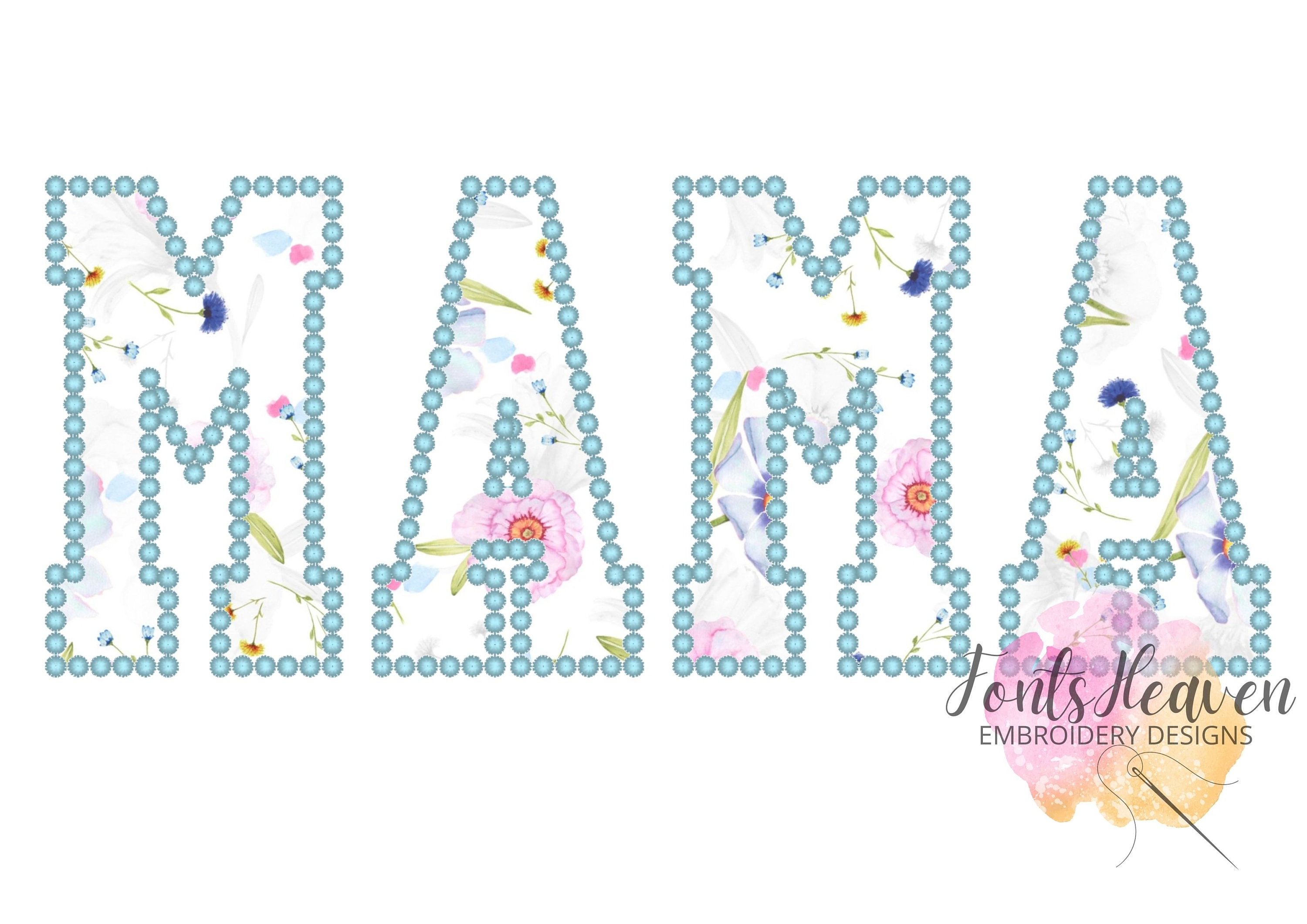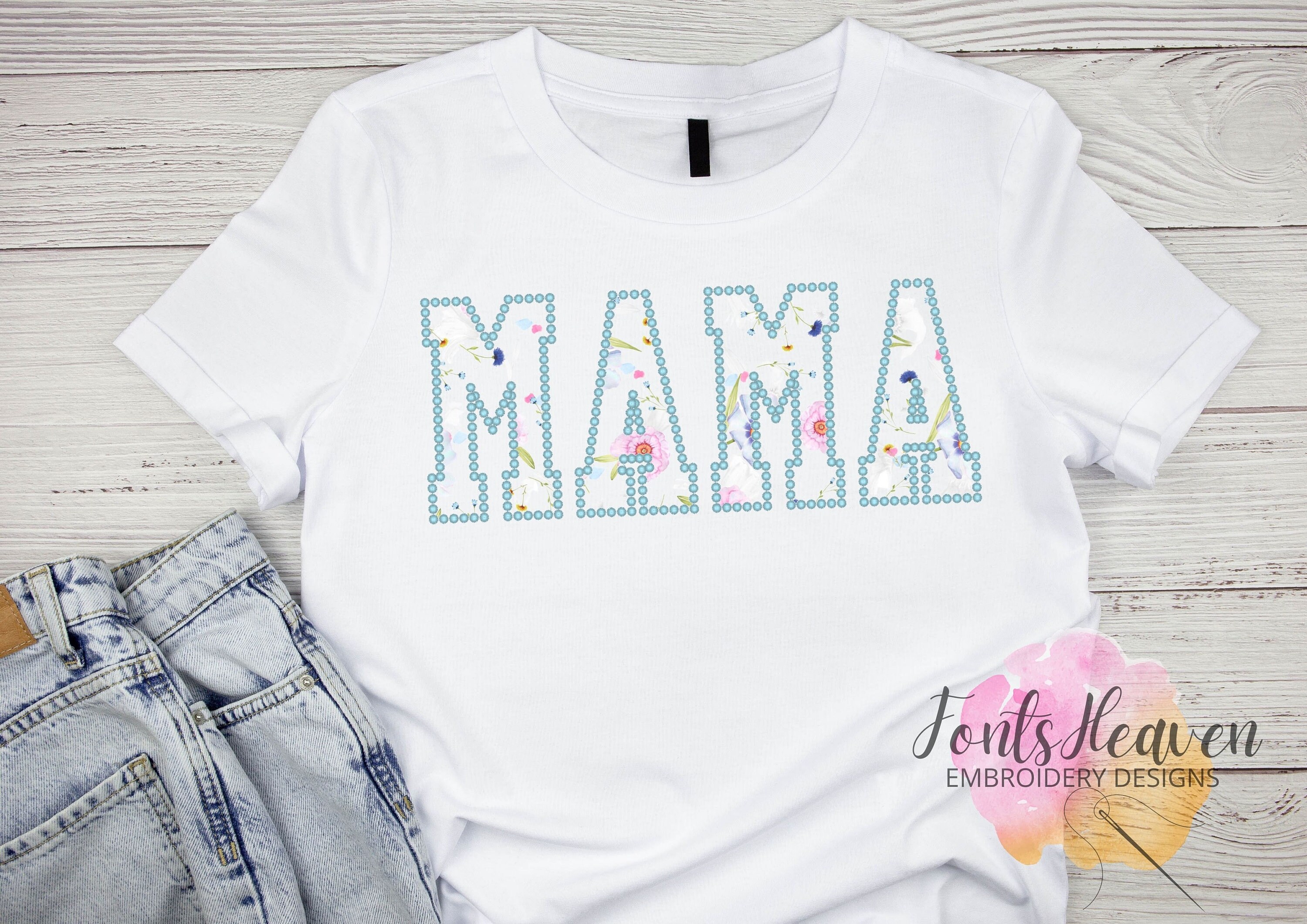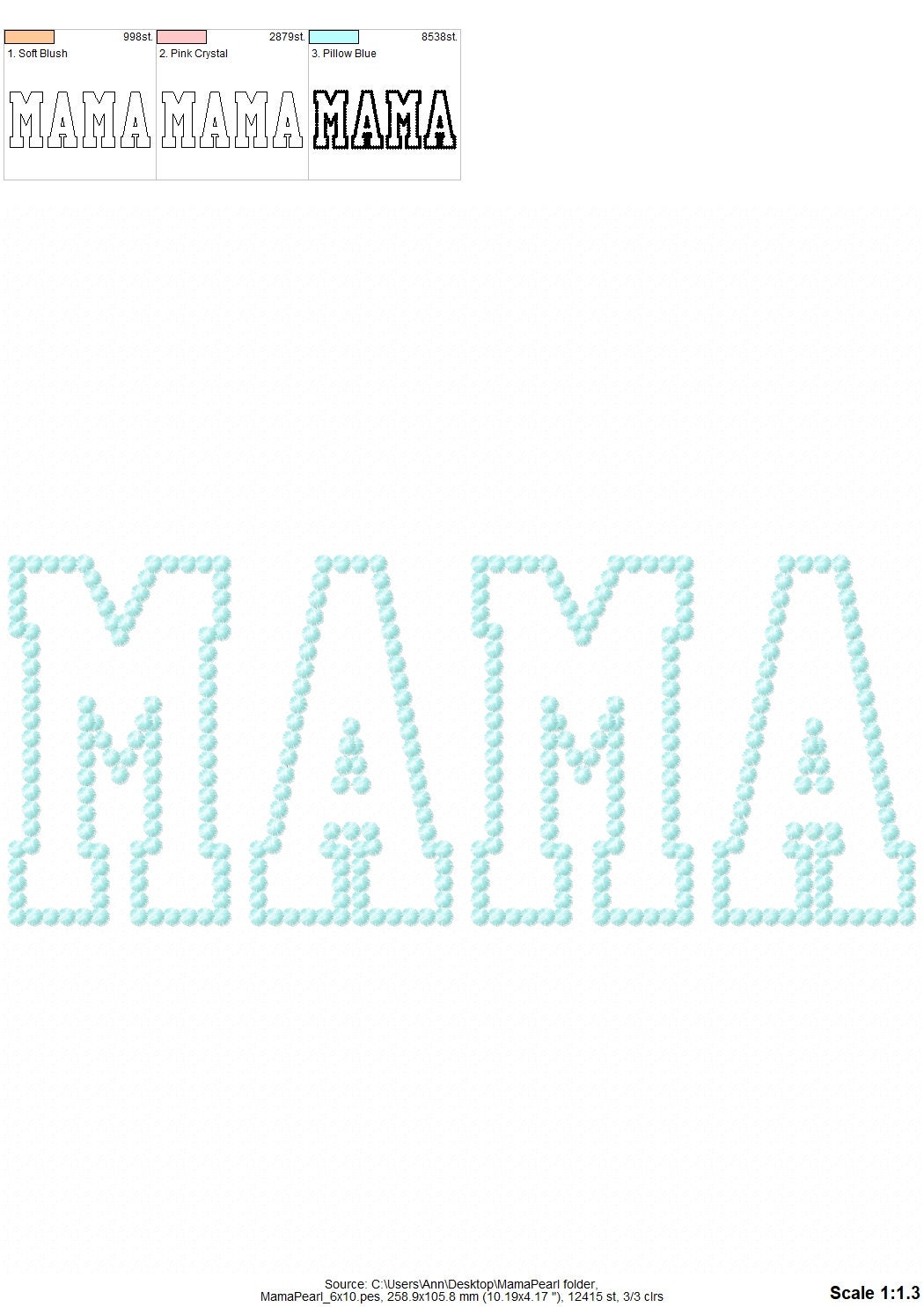
MAMA in pearl stitch machine Applique Embroidery Designs Pearl Edge outline Block Athletic Font Mother's Day Gift idea for hoop 6x10, 8x12
This is an awesome design with clear stitching. The Mama embroidery style was the most common used in this piece, which has a beautiful pearls stitch outline.